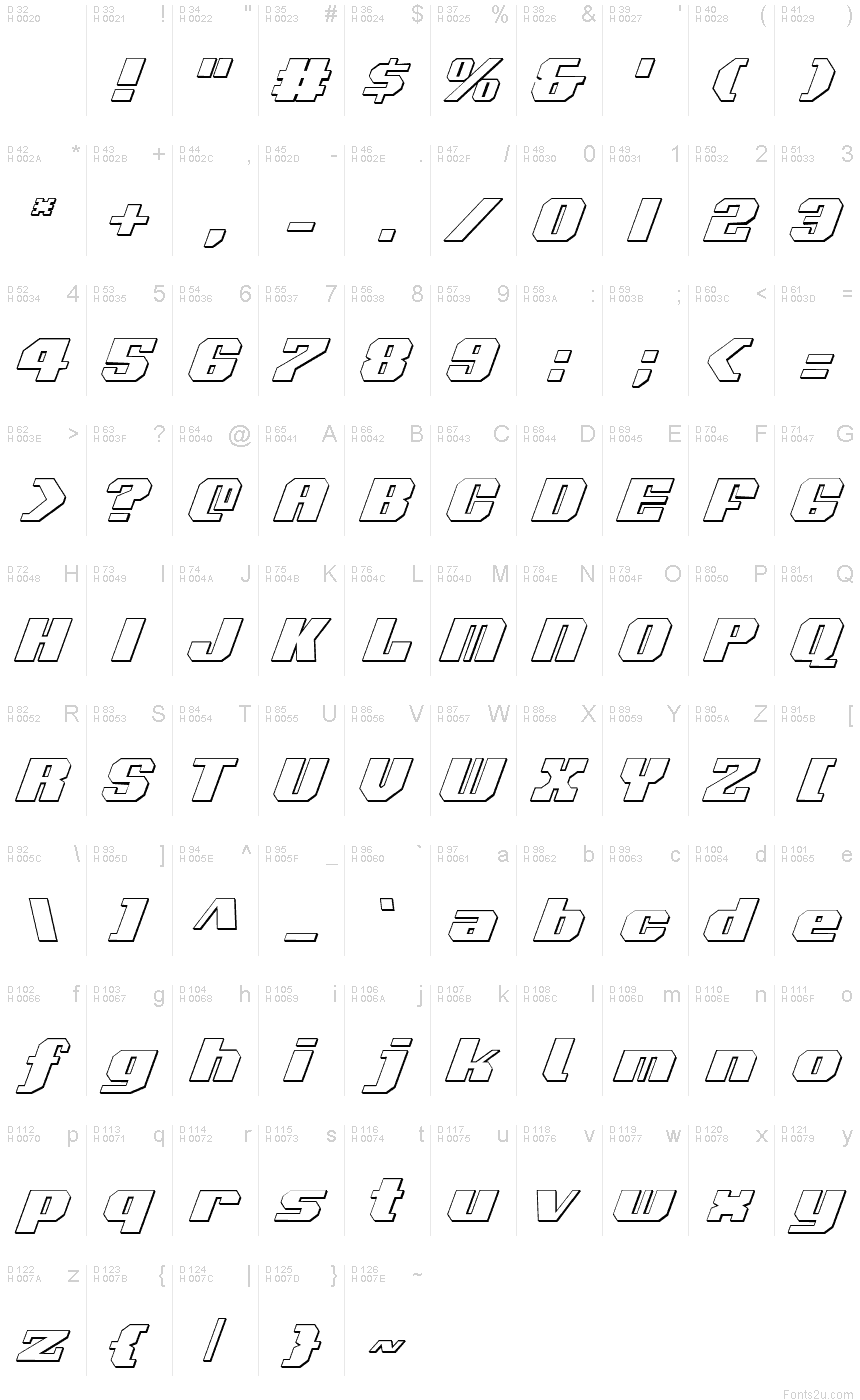
Voortrekker 3D Italic from Iconian Fonts is a free italic techno display font with broad angular letters, outlined faces, and stepped black shadows. Cut-in corners sharpen its massive silhouette.
To build a fast industrial identity, it suits motorsport branding, game title screens, event posters, and action-sports merchandise. The repeated slanted cuts can echo racing stripes, mechanical panels, or beveled hardware in the surrounding artwork.
Voortrekker 3D Italic